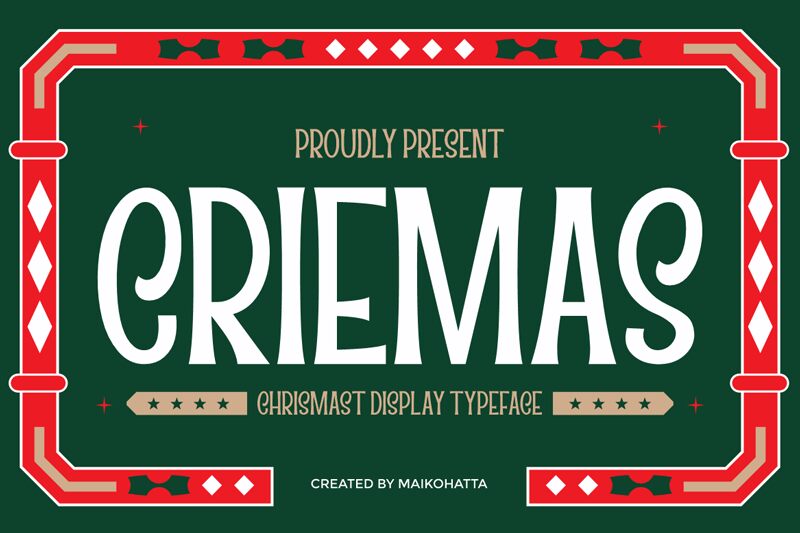
Criemas font family by Gilang Ternadho includes two free font styles designed for personal use. It is decorative and cheerful, instantly bringing back memories of past holidays. Speaking of nostalgia, Criemas is retro-inspired and reminds us of the posters and sign designs from the seventies and eighties. Balance to its type is brought in true perfection, creating a festive-themed masterpiece.
With its festive holiday appeal, Criemas is perfectly Christmas-ready. It can be used in gift wraps, gift card designs, greeting card designs, invitations, and festive note designs. The font can also help with packaging designs for advent calendars, festive chocolate boxes, teas, and coffee packages or get incorporated into book cover designs.